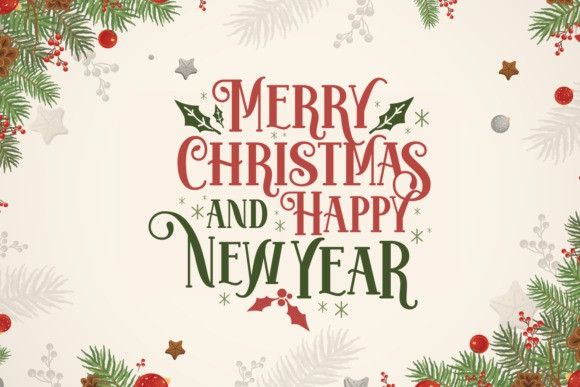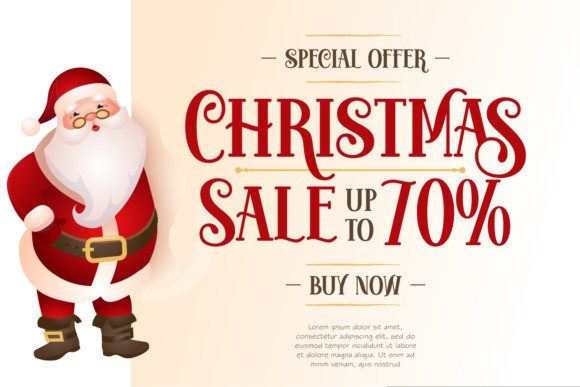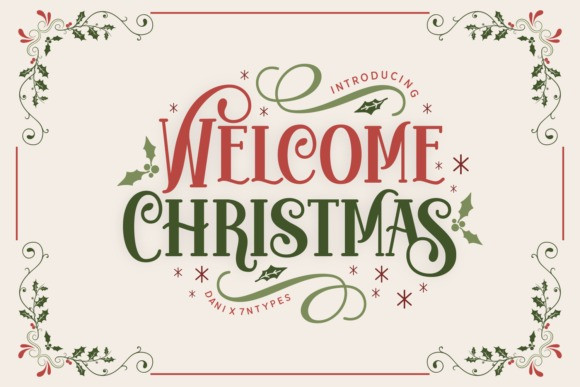
Welcome Christmas Display Typeface
Welcome Christmas Display Typeface is a joyful and festive display font. It matches each of your holiday creations so add this font to your designs and make them come alive!